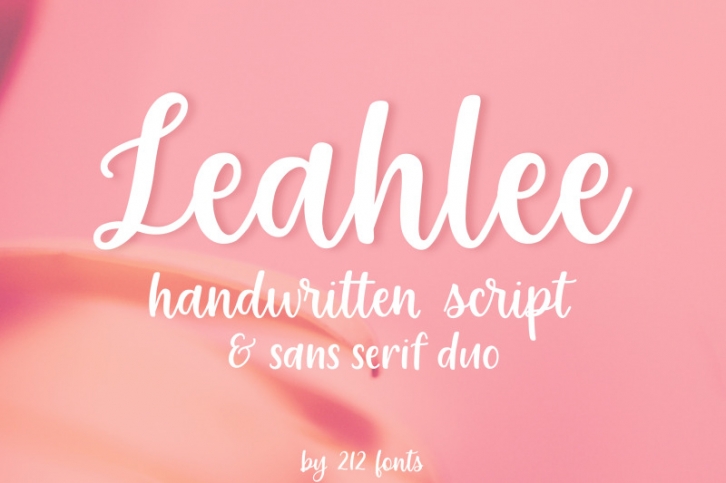
Leahlee Handwritten Script and Sans Serif Font Duo Download
Leahlee is a feminine, handwritten script, sans serif version as well as many ligatures and alternates.
Perfect for Wedding invitations, Branding, Logos, Greeting Cards and Quotes.